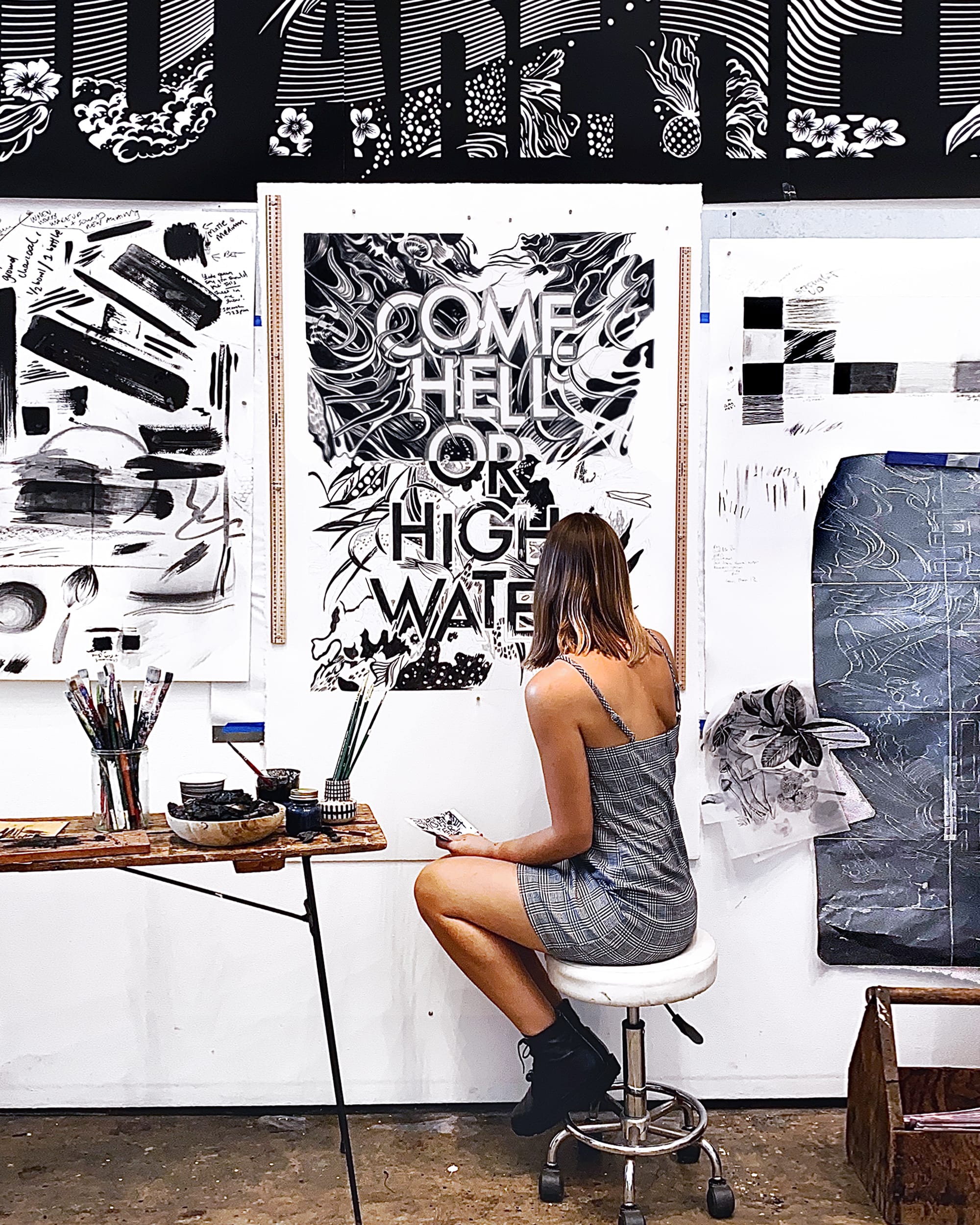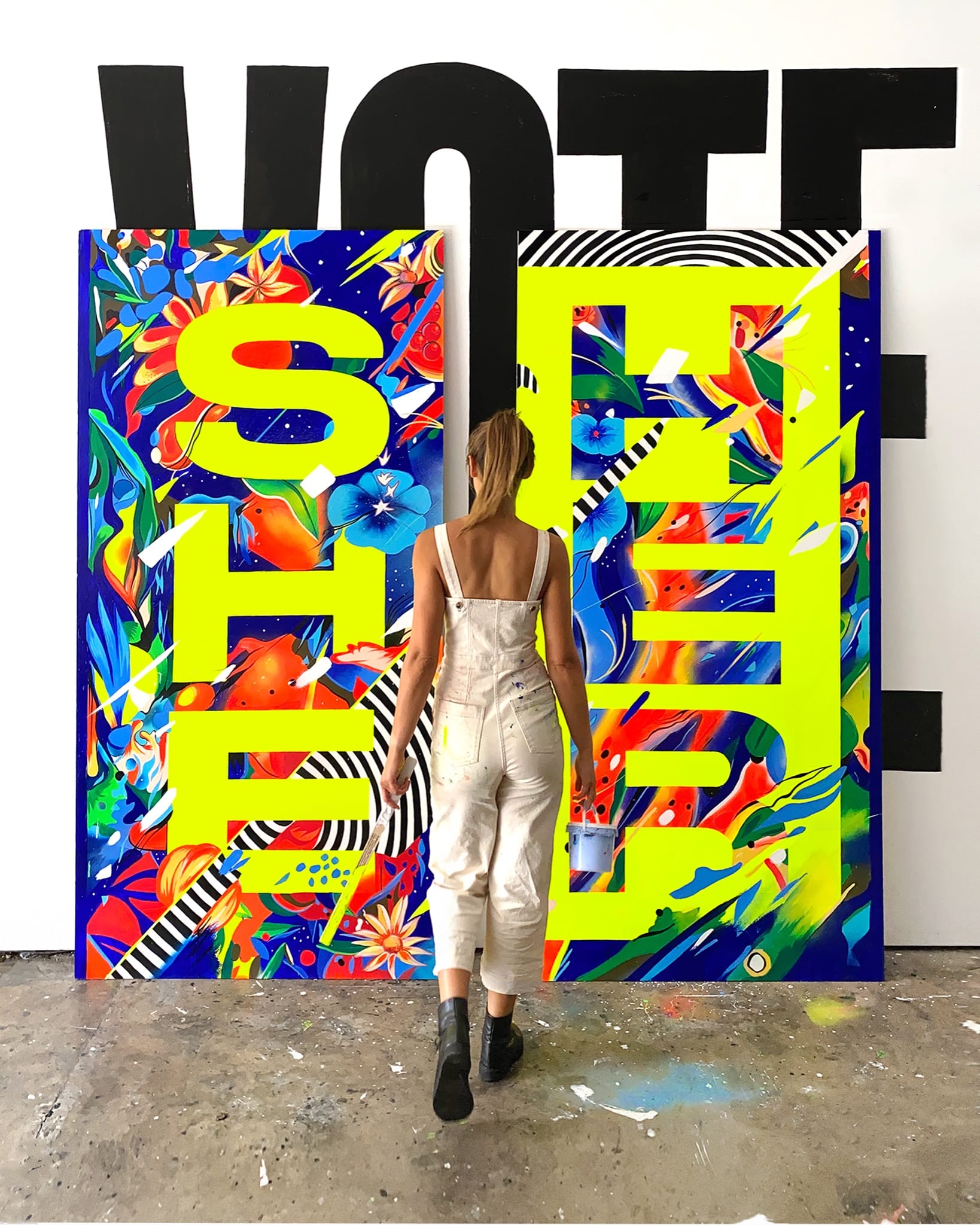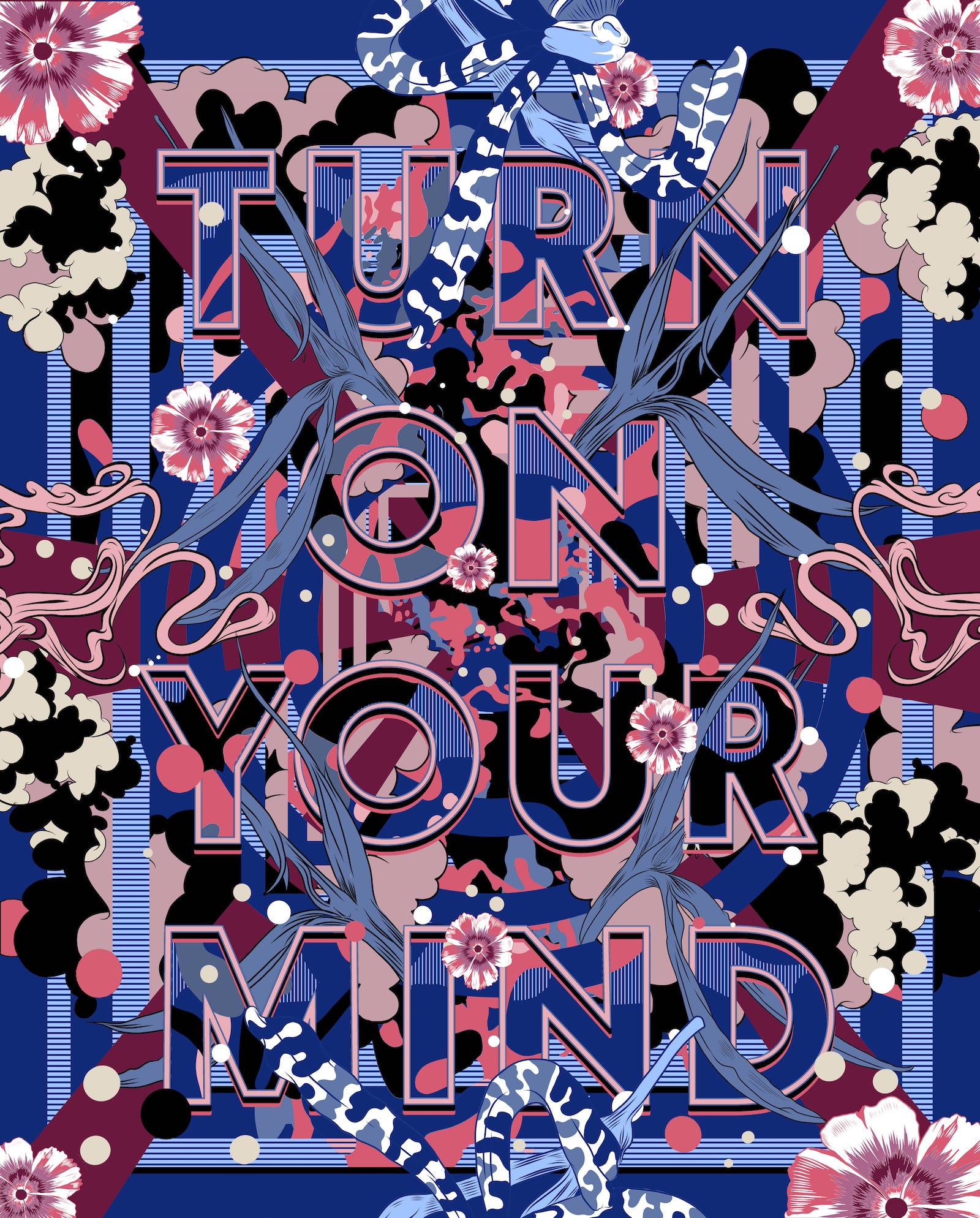
Workshop Nº 17 Experimental Lettering
Gemma O’Brien is an internationally renowned designer and artist known for her bold graphics, illustrative lettering and murals. Her work has been commissioned by Apple, Nike, Google, and is held in the permanent collection of the Cooper Hewitt Smithsonian Design Museum in New York City. Outside her commercial design work, she explores language, nature and the human experience through her art practice.